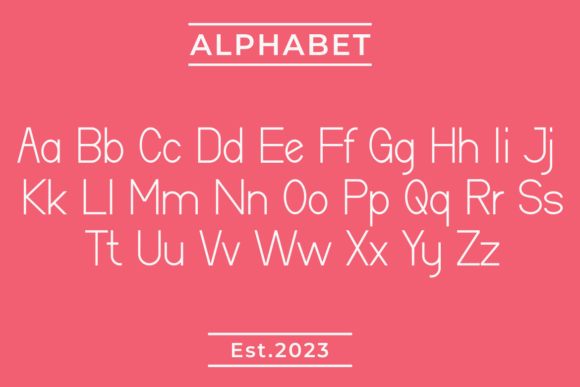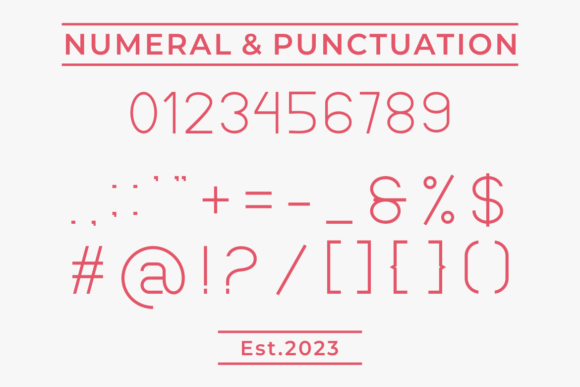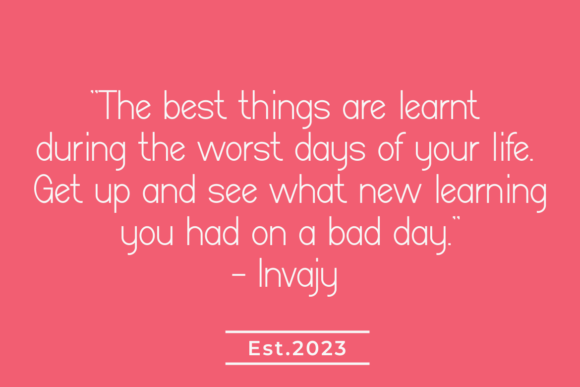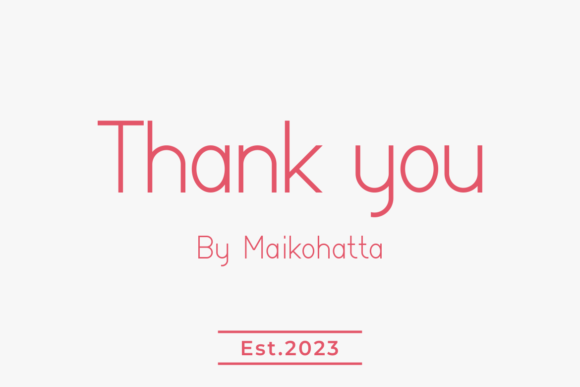
Introducing Charmilar Font: The Ultimate Modern Sans Serif Font for Designers and Crafters
In the world of typography, fonts play a crucial role in conveying messages, expressing emotions, and creating visual identities. For designers and crafters, finding the perfect font can be a daunting task, especially when it comes to creating modern and stylish designs. This is where Charmilar Font comes in – a beautiful, modern Sans Serif font with thin characters that is perfect for a wide range of design projects.
What is Charmilar Font?
Charmilar Font is a sleek and contemporary Sans Serif font that is designed to add a touch of elegance and sophistication to any design project. Its thin characters give it a unique and stylish look that is perfect for creating visually appealing designs. Whether you’re working on a quote, a branding project, a fashion magazine, or a website, Charmilar Font is the perfect choice.
Key Features of Charmilar Font
- Modern Sans Serif design: Charmilar Font features a clean and minimalist design that is perfect for modern designs.
- Thin characters: The font’s thin characters give it a unique and stylish look that is perfect for creating visually appealing designs.
- Highly versatile: Charmilar Font can be used for a wide range of design projects, including quotes, branding, fashion, magazines, websites, clothing, and more.
- Easy to read: Despite its thin characters, Charmilar Font is highly legible and easy to read, making it perfect for body text and headlines.
Use Cases for Charmilar Font
Charmilar Font is a highly versatile font that can be used for a wide range of design projects. Here are some use cases where Charmilar Font shines:
- Quotes and typography: Charmilar Font is perfect for creating inspirational quotes, typography posters, and social media graphics.
- Branding and logos: The font’s modern and stylish design makes it perfect for creating logos, business cards, and brand identities.
- Fashion and clothing: Charmilar Font is a great choice for fashion designers, clothing brands, and lifestyle blogs.
- Magazines and websites: The font’s readability and style make it perfect for use in magazines, websites, and blogs.
Tips for Using Charmilar Font
Here are some tips for getting the most out of Charmilar Font:
- Use it as a headline font: Charmilar Font is perfect for headlines and titles, where its thin characters can really shine.
- Pair it with bold fonts: Pair Charmilar Font with bold fonts to create a nice contrast and add visual interest to your designs.
- Experiment with colors: Charmilar Font looks great in a range of colors, so don’t be afraid to experiment and find the perfect color scheme for your design.
In conclusion, Charmilar Font is a beautiful and versatile modern Sans Serif font that is perfect for designers and crafters. Its thin characters give it a unique and stylish look that is perfect for creating visually appealing designs. With its high legibility, versatility, and range of use cases, Charmilar Font is a great addition to any designer’s font library.